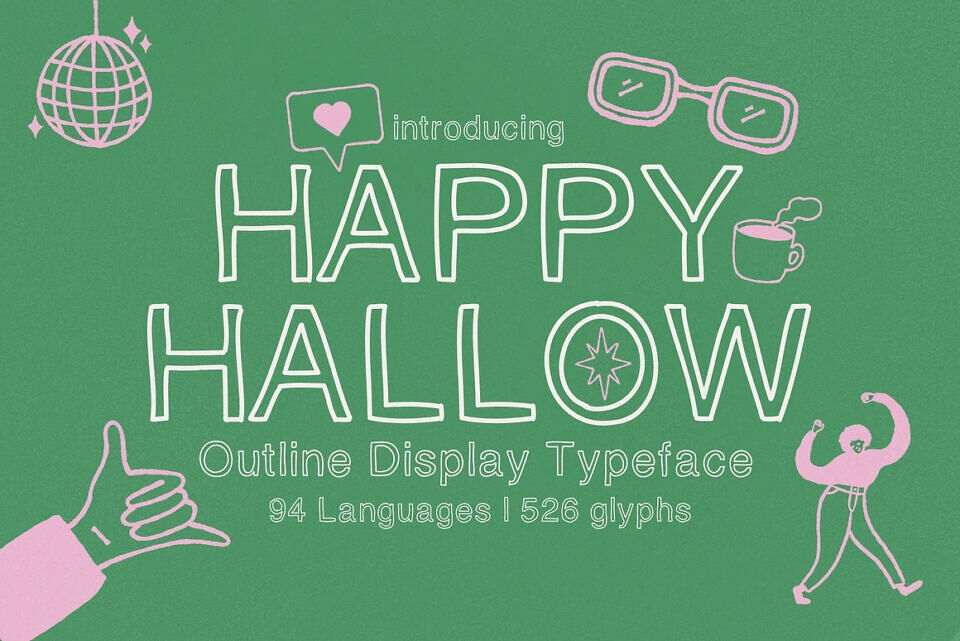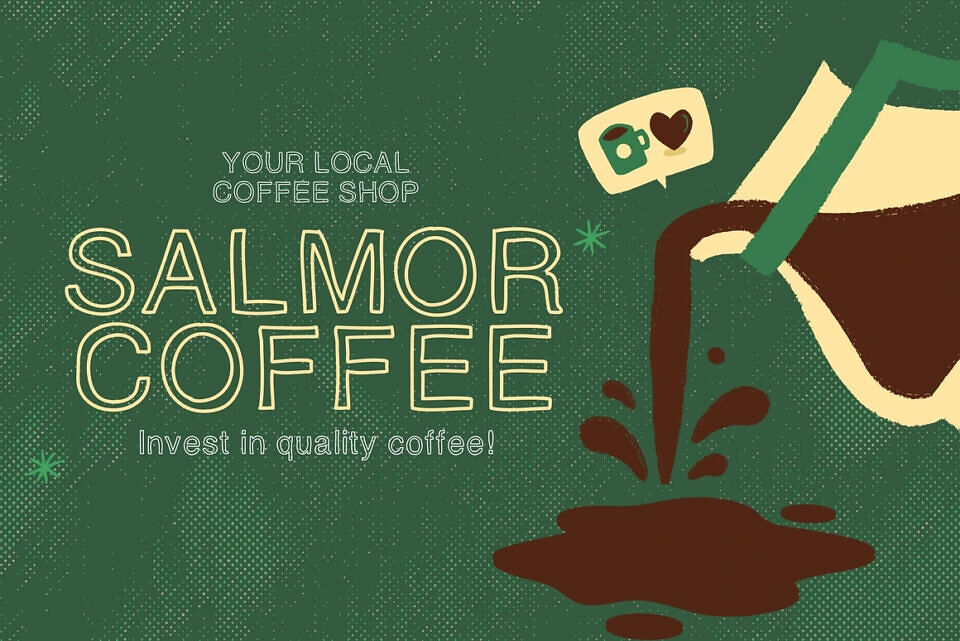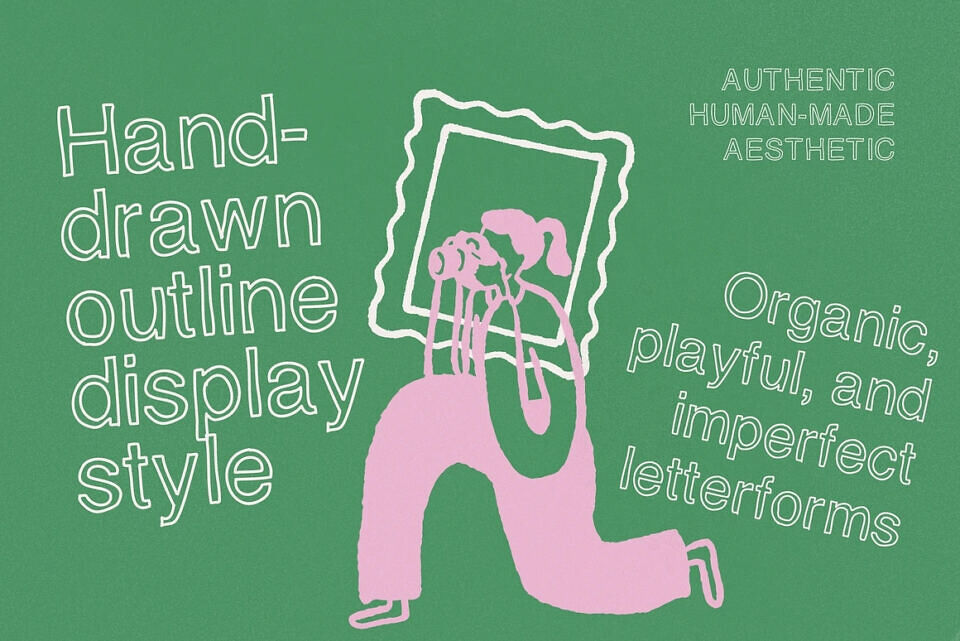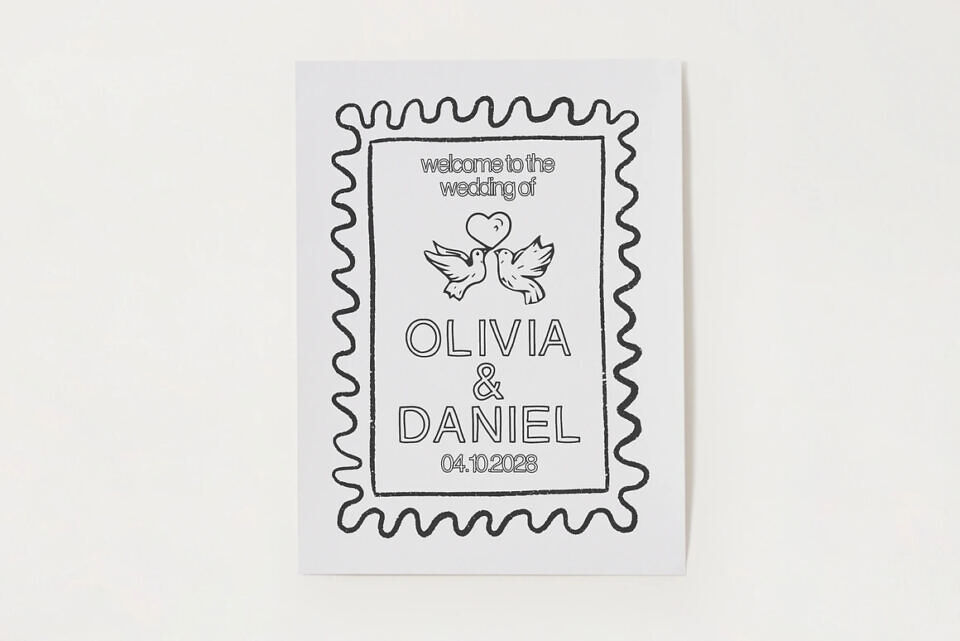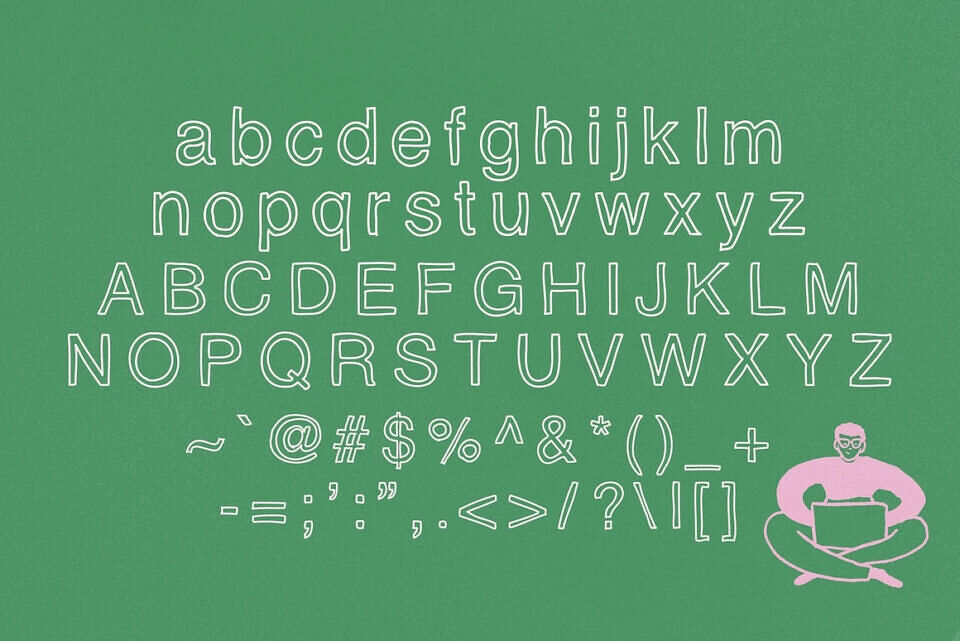
Say hello to Happy Hallow, a lively hand-drawn outline typeface bursting with personality, charm, and youthful energy. Designed to celebrate the beauty of imperfection, this playful display font embraces organic strokes and uneven details that give every letter a warm, authentic human feel.
Unlike rigid digital typography, Happy Hallow feels spontaneous and expressive — as if each letter was carefully sketched by hand. Its imperfect outlines and playful rhythm create a joyful visual tone that instantly brings designs to life. The result is a font that is perfect for designers who want typography that feels natural, friendly, and expressive.